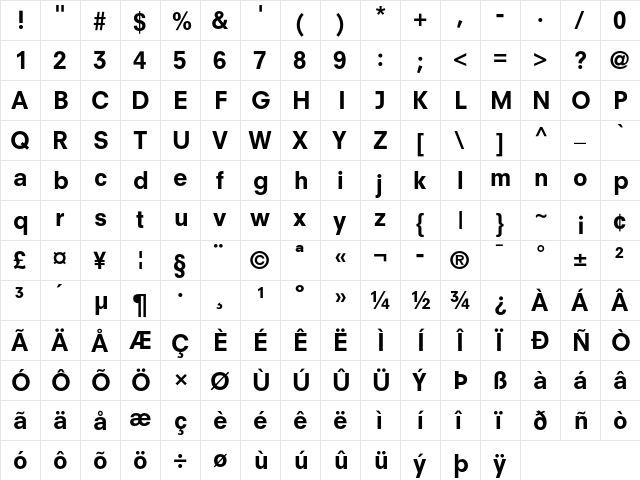
Neuzeit S Book Heavy
Design Context for Neuzeit S Typeface
Neuzeit S offers clean, dependable letterforms without strong stylistic allegiance, making it a practical choice for designers who need flexibility.
Pro Tip: Use Neuzeit S in both headline and body roles to test its range before committing to a single application.